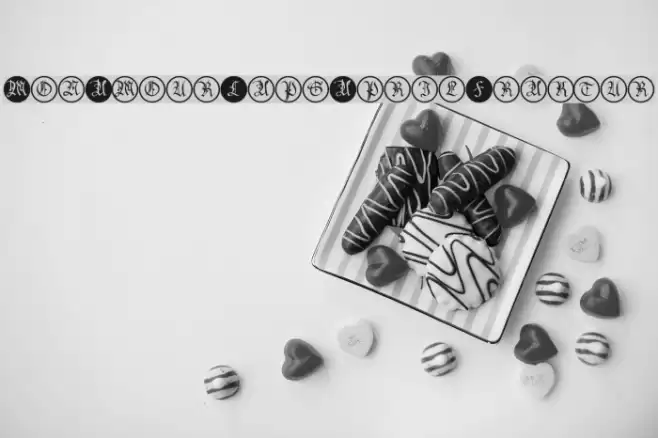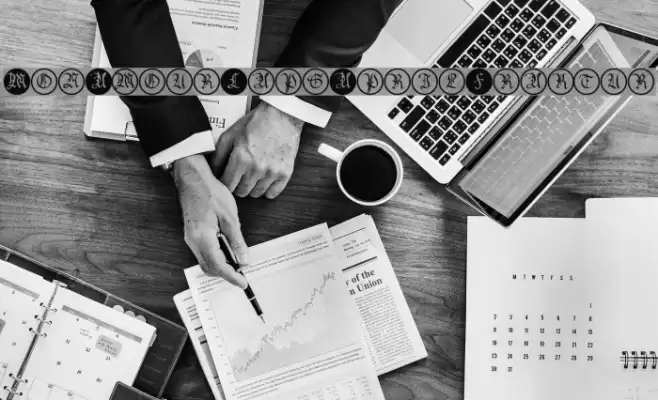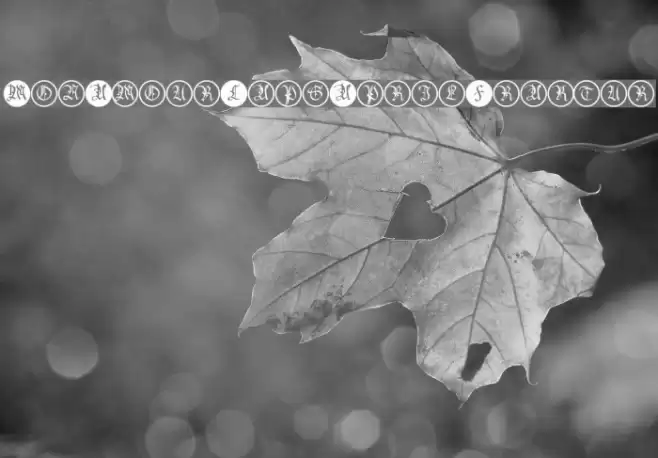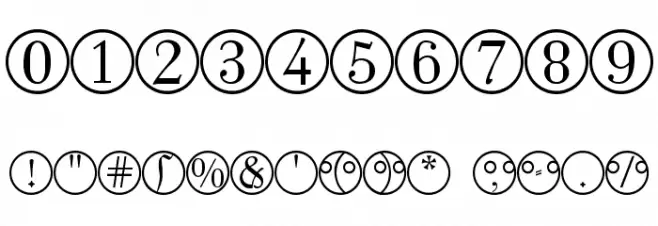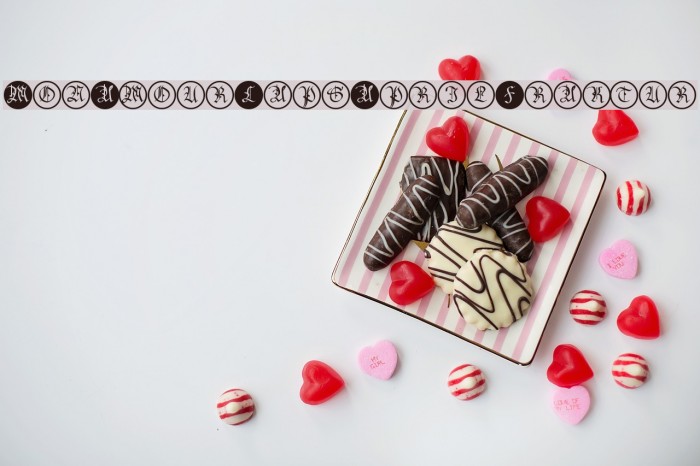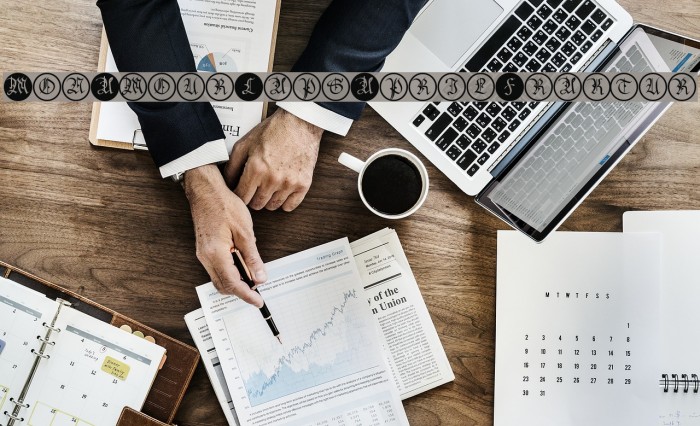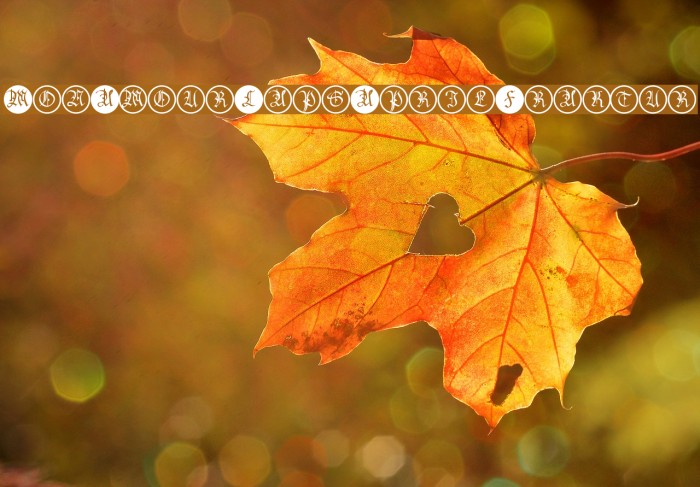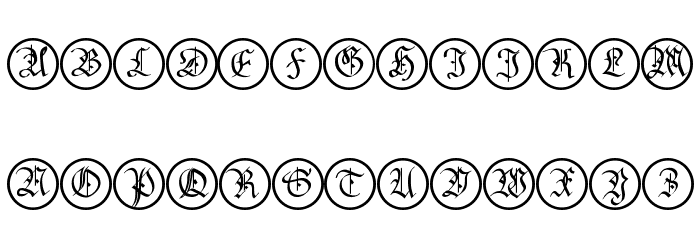
MonAmourCapsAprilFraktur Font
MonAmourCapsAprilFraktur Description
This font features a distinctively ornate and decorative style, reminiscent of traditional blackletter typography. Each character is encased in a circular border, adding a unique and cohesive element to the overall design. The uppercase letters exhibit intricate flourishes and sharp angles, characteristic of the Fraktur style, while the numerals and special characters maintain a consistent aesthetic within their circular frames. The font's bold and dramatic appearance makes it suitable for projects that require a touch of elegance and historical flair.
An ornate blackletter font with characters encased in circular borders from Uncategorized fonts.
- Proposed Projects: Ideal for vintage-themed designs, wedding invitations, certificates, and branding that seeks a classic and elegant touch.
- Overall Style: Vintage, Decorative
- Use Case: Logos, Headlines, Decorative text